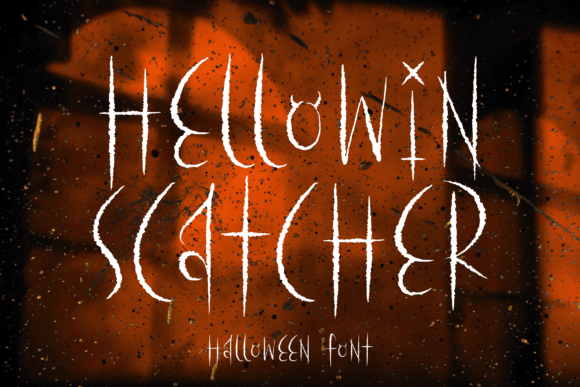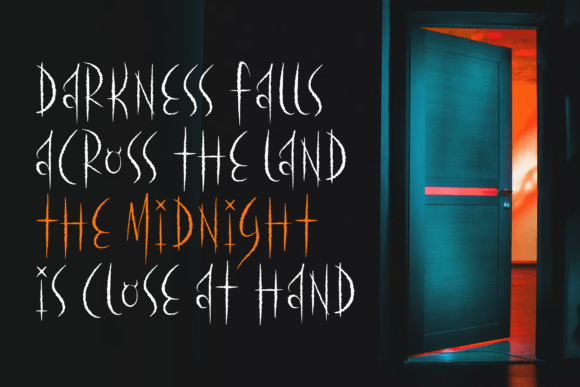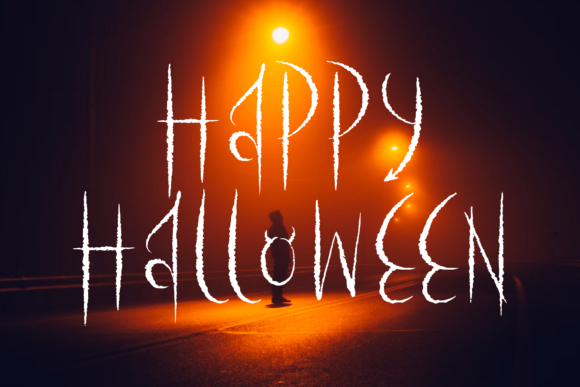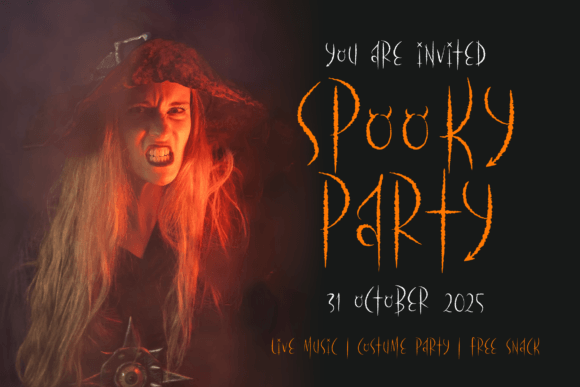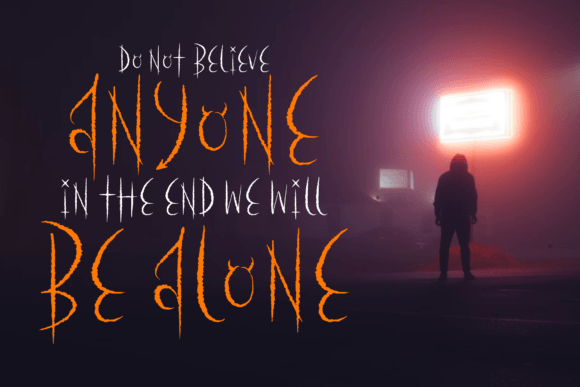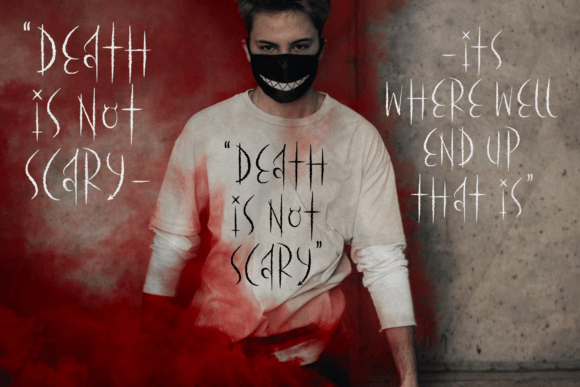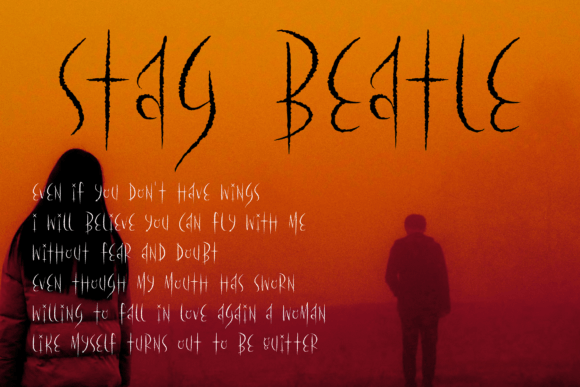
The Spooky Season Calls for a Font that Dares to be Different
As the leaves start to change colors and the wind whispers eerie tales, you can’t help but feel the excitement building up inside. It’s that time of the year when creativity knows no bounds, and the world of design comes alive with a dash of spookiness. Whether you’re working on a Halloween-themed project or just want to add a touch of macabre to your designs, you need a font that can cast a spell on your audience.
Enter the Hellowin Scatcher Font – a hauntingly beautiful script font that’s perfect for adding a touch of elegance to your projects. With its unique blend of spooky and sophisticated, this font is a must-have for designers looking to create memorable designs. From logos to branding projects, homeware designs to product packaging, the Hellowin Scatcher Font is sure to leave a lasting impression on your audience.
Hellowin Scatcher Font Key Features
- Unique Characteristics: The Hellowin Scatcher Font features a unique blend of modern and vintage elements, with a distinctive scratchy texture that adds a touch of nostalgia and grit to any design.
Hellowin Scatcher Font Review
I recently had the chance to work with the Hellowin Scatcher Font, and overall, I was quite impressed with its unique characteristics. ✨ One of the things that stood out to me was its playful, whimsical feel, which makes it perfect for projects that require a touch of personality.
Here are some of the features that I enjoyed:
- Customizable ligatures and swashes, which can add an extra layer of sophistication to your designs.
- Support for multiple languages, making it a great option for international projects.
- A wide range of weights and styles, allowing you to experiment with different looks and feels.
However, I did encounter some limitations ⚠️:
- Some of the glyphs may appear inconsistent or uneven, which can be distracting in certain contexts.
- The font may not be as suitable for body text, as it can be quite ornate and may be difficult to read at smaller sizes.
- Lack of fine-tuning options for specific design elements, which can make it challenging to achieve a precise look.
Overall, I think the Hellowin Scatcher Font is a great option for designers looking to add a touch of personality to their projects. While it may have some limitations, its unique characteristics and customization options make it a worthwhile investment for the right project.
Hellowin Scatcher Font: A Practical Application Guide
Tips for Getting the Most Out of the Hellowin Scatcher Font
The Hellowin Scatcher Font is perfect for creating eye-catching headings and titles. Here are some tips to get the most out of it:
- Use the font in combination with bold or italic styles to add emphasis.
- Experiment with different font sizes to create visual hierarchy.
- Pair the font with other fonts to create a unique and interesting visual effect.
The Hellowin Scatcher Font is ideal for:
- Creating attention-grabbing headlines and titles.
- Designing logos and branding materials.
- Gradients and textures to add depth and dimension
- Images of cityscapes or urban landscapes to set the scene
- Abstract shapes and patterns to create visual interest
- Watercolor textures and patterns to add a whimsical touch
- Images of flowers or other natural elements to create a calming atmosphere
- Quotes or lyrics to inspire and motivate